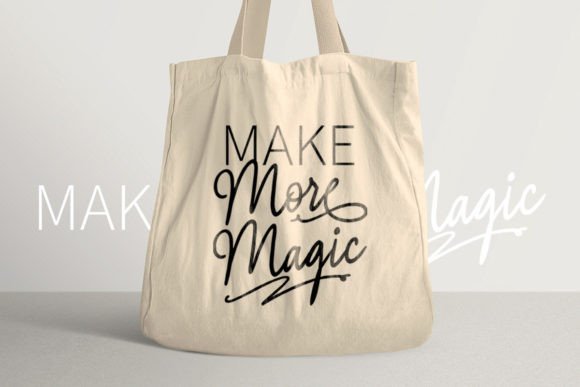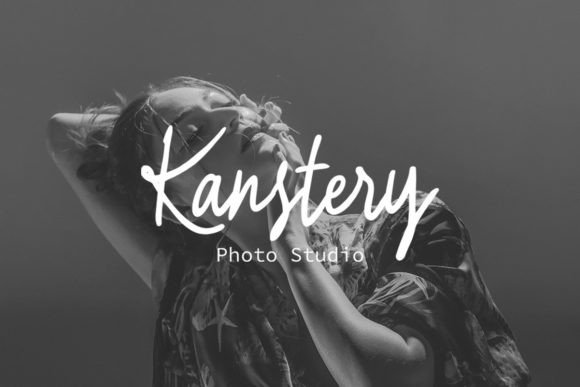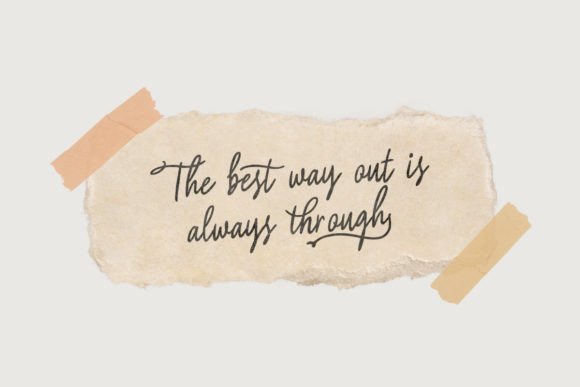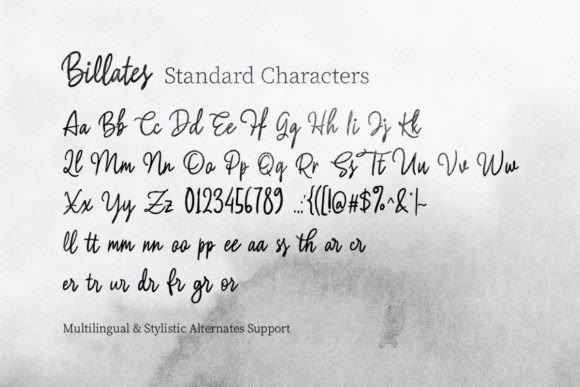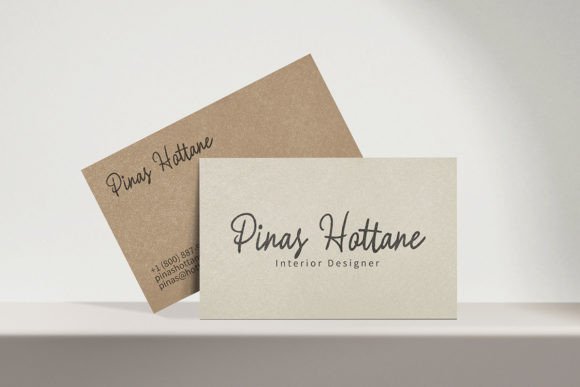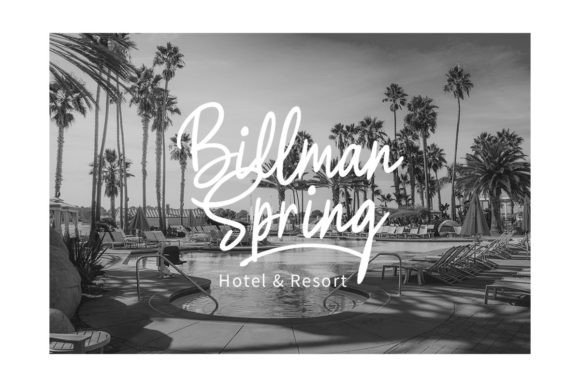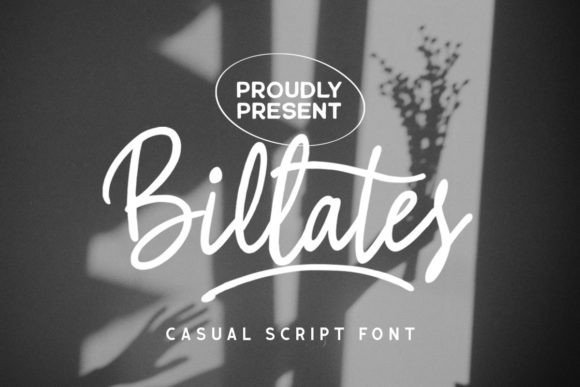
Discover the Charm of Billates Font: Elevate Your Designs with a Casual Flair
Are you on the hunt for a script font that embodies a carefree and laid-back vibe? Look no further than Billates Font! With its organic and fluid strokes, this beautiful font is designed to bring a sense of casual elegance to your design projects. Whether you’re working on a creative endeavor, crafting a brand identity, or simply looking for a unique way to express yourself, Billates is the perfect choice.
The Essence of Billates Font
Billates Font boasts a natural, handwritten aesthetic that exudes warmth and approachability. Its casual flair makes it an excellent option for designers and crafters seeking to infuse their work with a relaxed, informal feel. This versatile font can be used across various design applications, from personal stationery and social media graphics to product packaging and advertising materials.
Key Features of Billates Font
• Casual and Relaxed Style: Billates Font features a laid-back, free-flowing design that captures the essence of a carefree writing style.
• Natural and Organic: The font’s strokes have a natural, hand-crafted feel that adds a touch of warmth and personality to your designs.
• Versatile and Adaptable: Billates can be used for a wide range of design projects, from creative and personal to commercial and professional.
• Easy to Read: Despite its casual nature, Billates remains highly legible, making it suitable for both short and long-form content.
Billates Font’s versatility makes it an excellent choice for various design projects, including:
• Handwritten Notes and Stationery: Add a personal touch to your letters, cards, and journals with Billates’ warm and inviting style.
• Product Packaging: Elevate your brand’s packaging design with a font that exudes a carefree and approachable vibe.
• Social Media Graphics: Use Billates to create engaging and eye-catching social media graphics that reflect your brand’s personality.
• Advertising and Marketing Materials: Bring a touch of casual sophistication to your ads, flyers, and brochures with Billates Font.
Tips for Using Billates Font Effectively
To get the most out of Billates Font, consider the following tips:
• Pair with Contrasting Fonts: Combine Billates with a clean, sans-serif font to create visual interest and hierarchy in your designs.
• Experiment with Colors: Billates Font looks great in a variety of colors, so don’t be afraid to try out different hues and gradients.
• Play with Texture and Patterns: Add depth and visual interest to your designs by incorporating textures and patterns that complement Billates’ natural style.
In conclusion, Billates Font is an exceptional choice for designers and crafters seeking a script font with a casual flair. Its natural, free-flowing style and versatile nature make it perfect for a wide range of design applications. Whether you’re looking to add a touch of elegance to your packaging, create engaging social media graphics, or simply express yourself through creative writing, Billates Font is sure to become a favorite in your design arsenal.